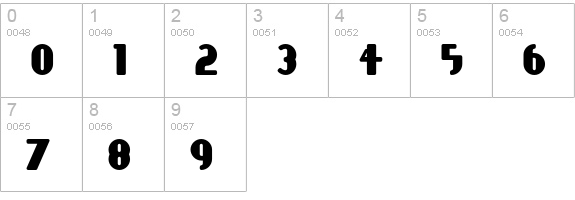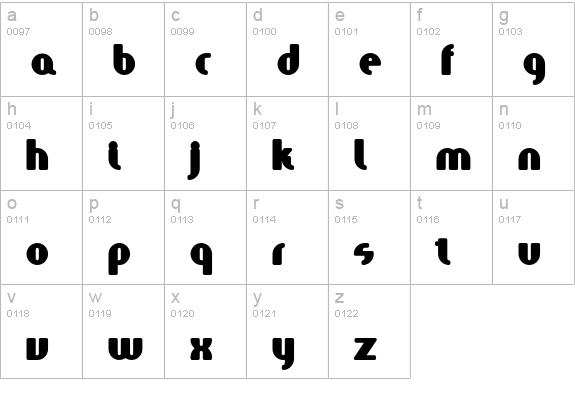
FastGirls-CCup font is a stylish and modern typeface that exudes elegance and sophistication. With its sleek curves and bold lines, this font is perfect for creating eye-catching designs that demand attention. Whether you're working on a branding project, a poster design, or a website, FastGirls-CCup font will add a touch of glamour to your work. What's even better is that FastGirls-CCup font is available for free download at FontsMarket.com. So you can easily add this gorgeous font to your collection without breaking the bank. Don't miss out on the opportunity to elevate your designs with the stunning FastGirls-CCup font – download it now and let your creativity shine!